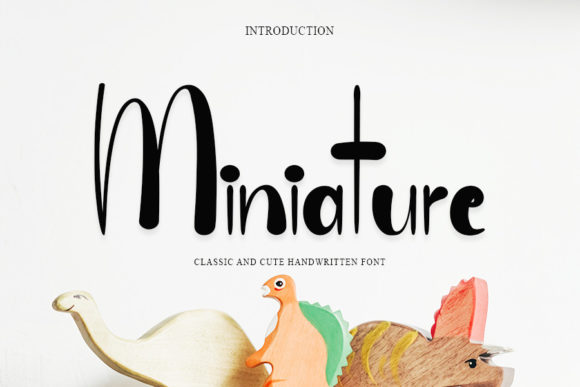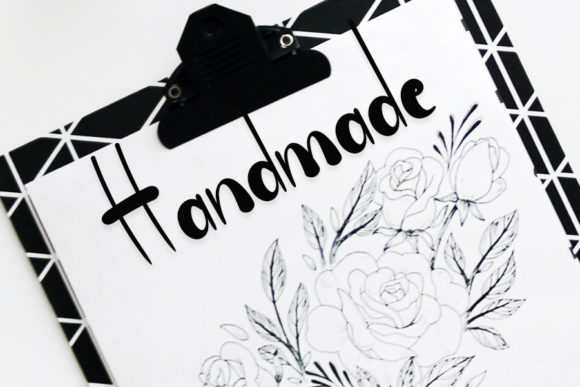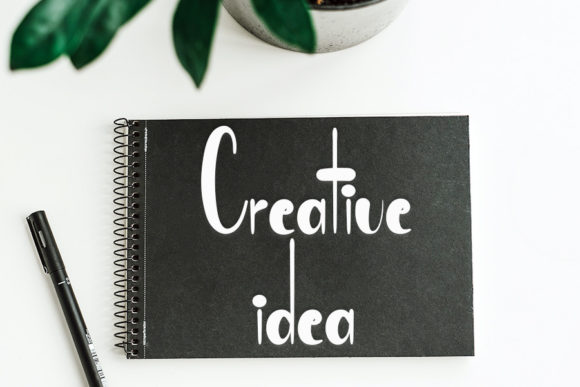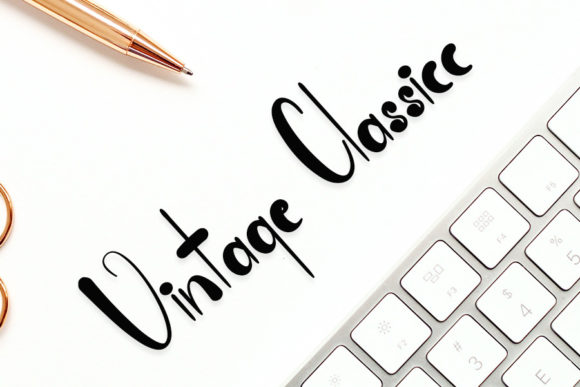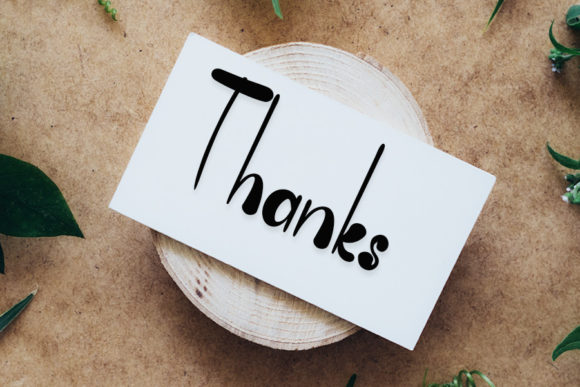
Miniature Font
About Miniature Font
Miniature is a playful and smart handwritten font with an impeccable form, inspired by a timeless calligraphy. Balanced and varied, this font was designed to enhance the beauty of your projects.